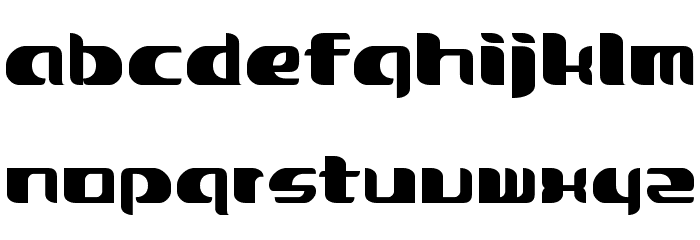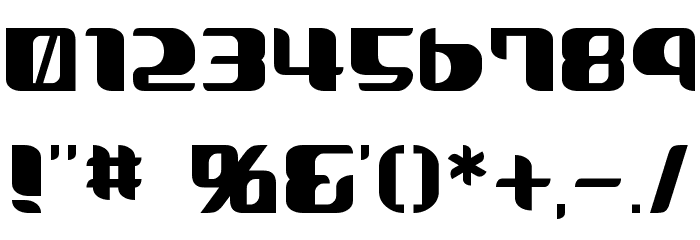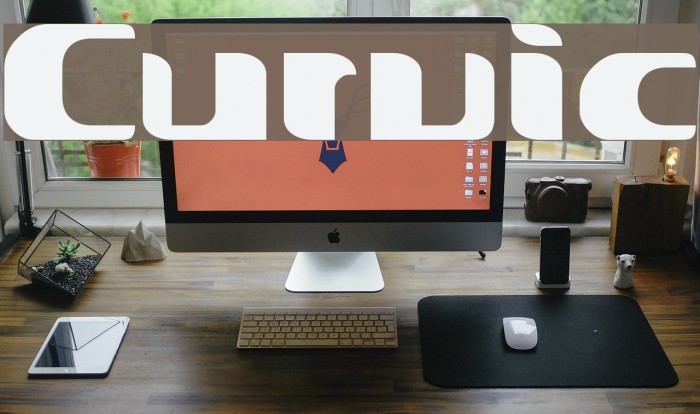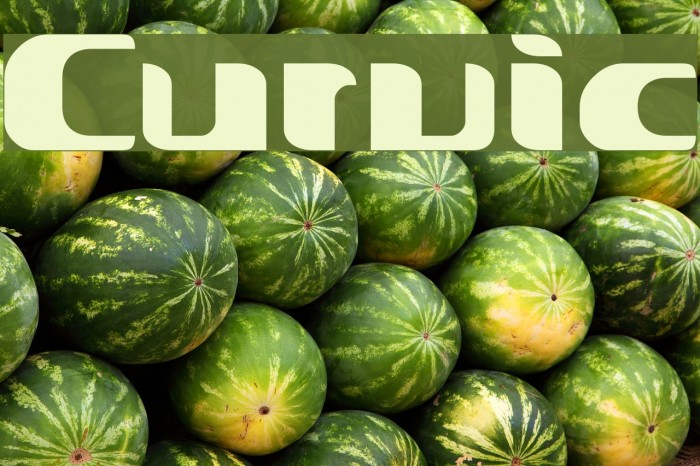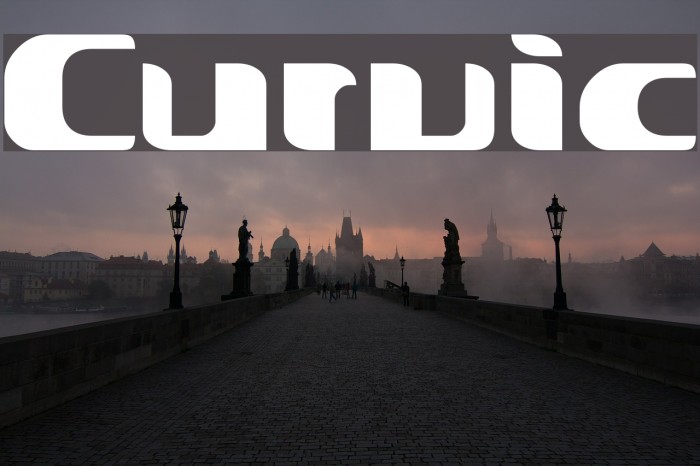
Curvic Font
This font features a bold and modern design with a unique geometric style. The characters are crafted with rounded edges and a consistent stroke width, giving it a futuristic and sleek appearance. The uppercase and lowercase letters maintain a uniform height, contributing to its cohesive look. The numerals and special characters are designed to match the overall aesthetic, ensuring visual harmony across all elements. Its distinctive style makes it stand out, while the clear and legible forms ensure readability.
A bold, modern font with geometric, rounded characters.
- Proposed Projects: Ideal for branding, posters, and digital media where a modern and bold statement is needed.